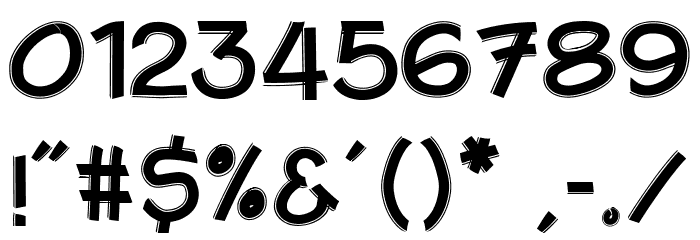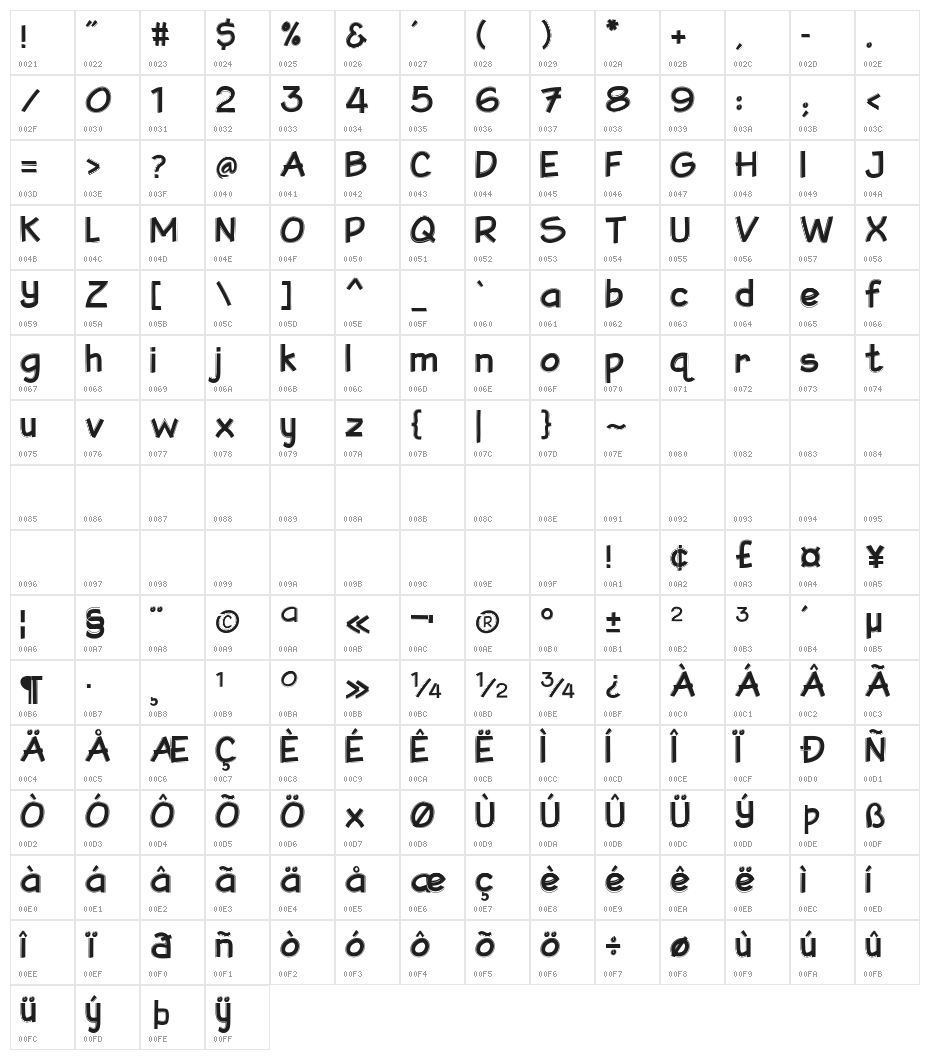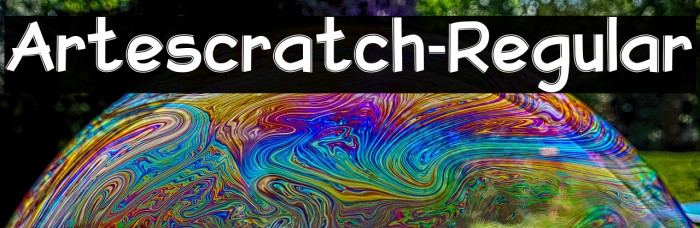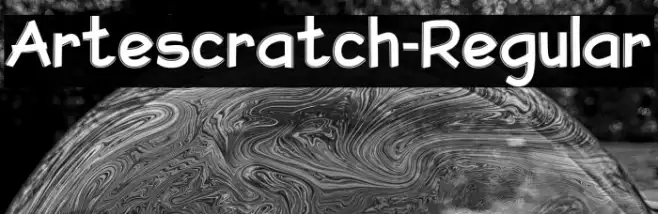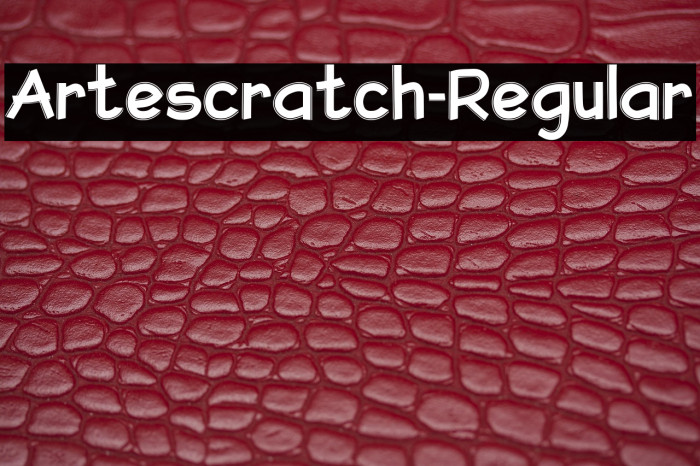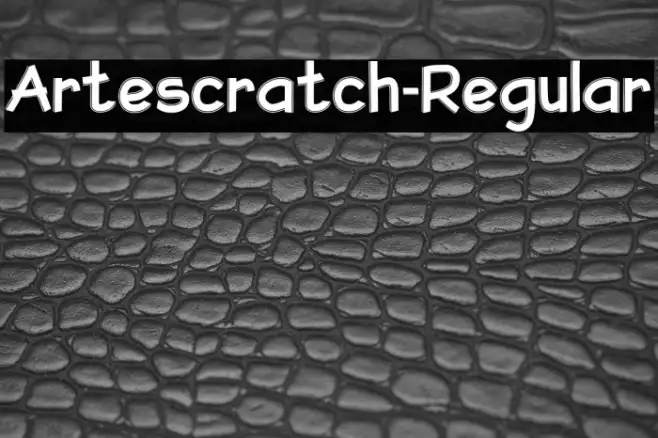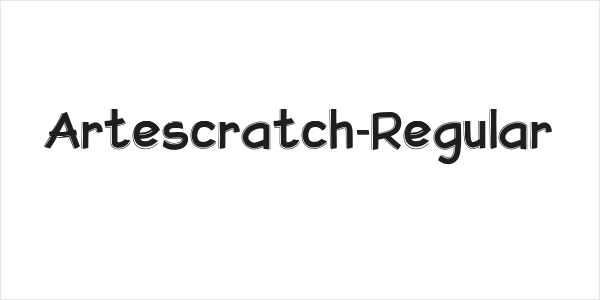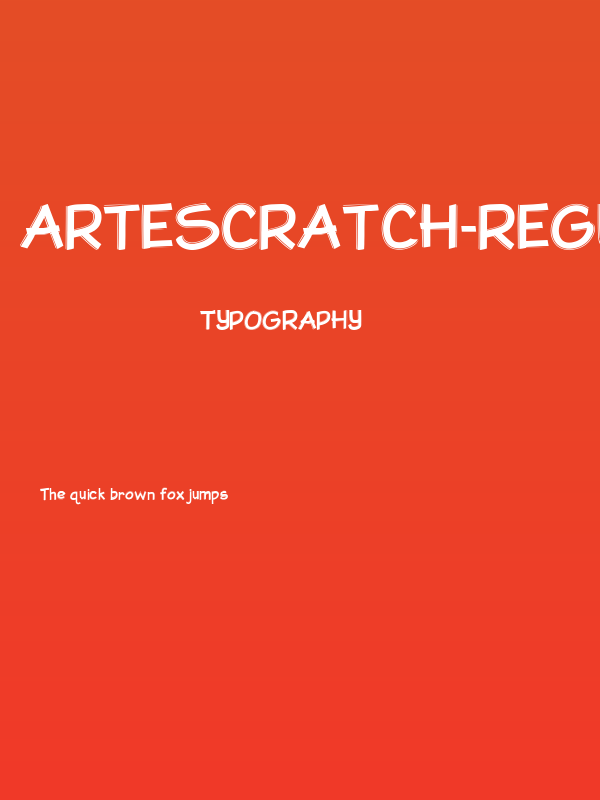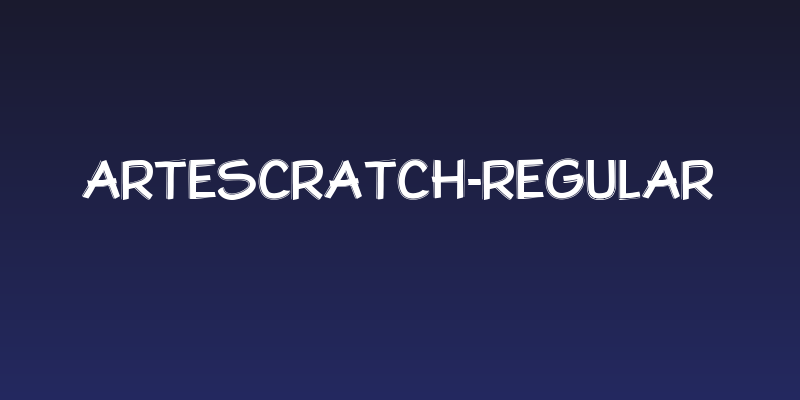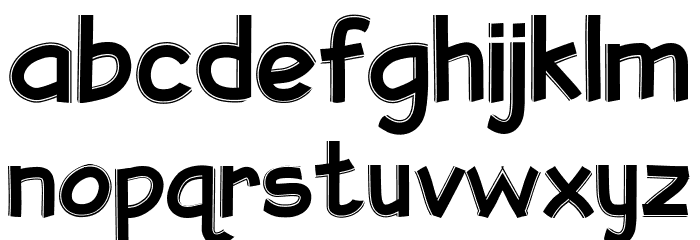
Artescratch-Regular Font
Artescratch-Regular Description
This font features a playful and artistic style, characterized by its bold and slightly irregular strokes that give it a hand-drawn appearance. The letters have a dynamic and energetic feel, with varying stroke widths that add to its casual and informal look. The uppercase and lowercase letters maintain a consistent style, while the numbers and special characters are designed to complement the overall aesthetic. The font's unique charm makes it suitable for creative projects that require a touch of whimsy and personality.
| Proposed Projects | Ideal for children's books, creative posters, playful branding, and artistic invitations. |